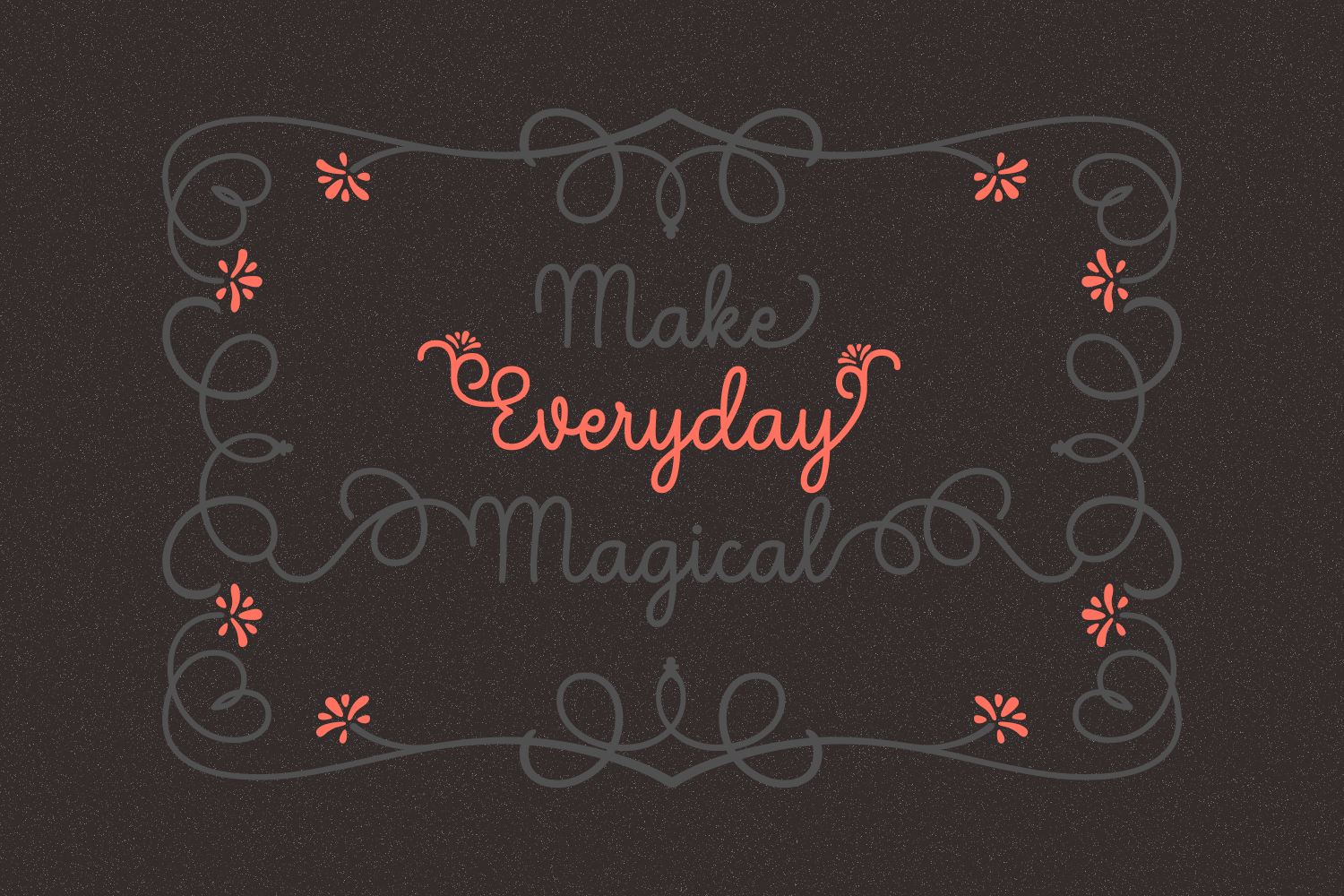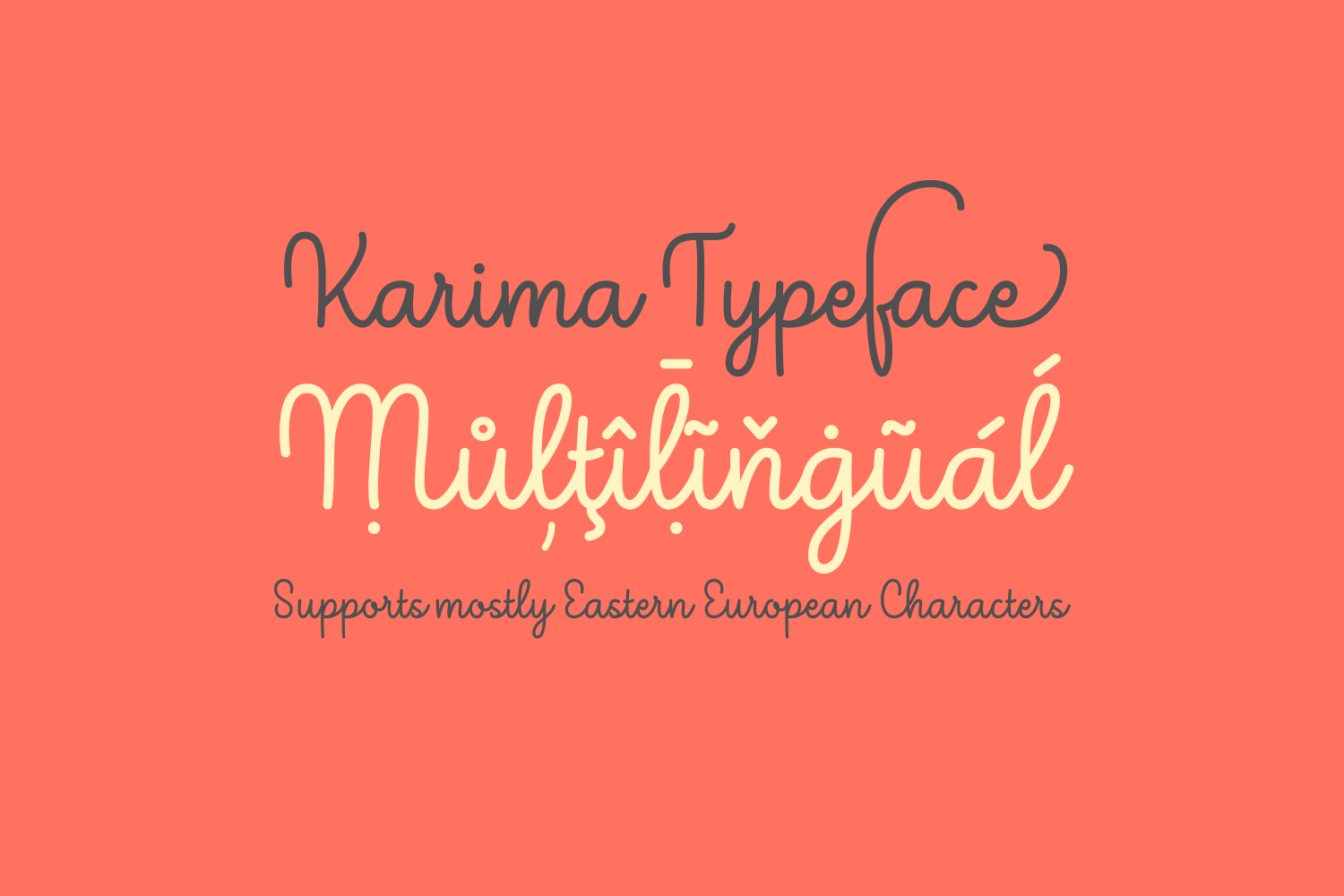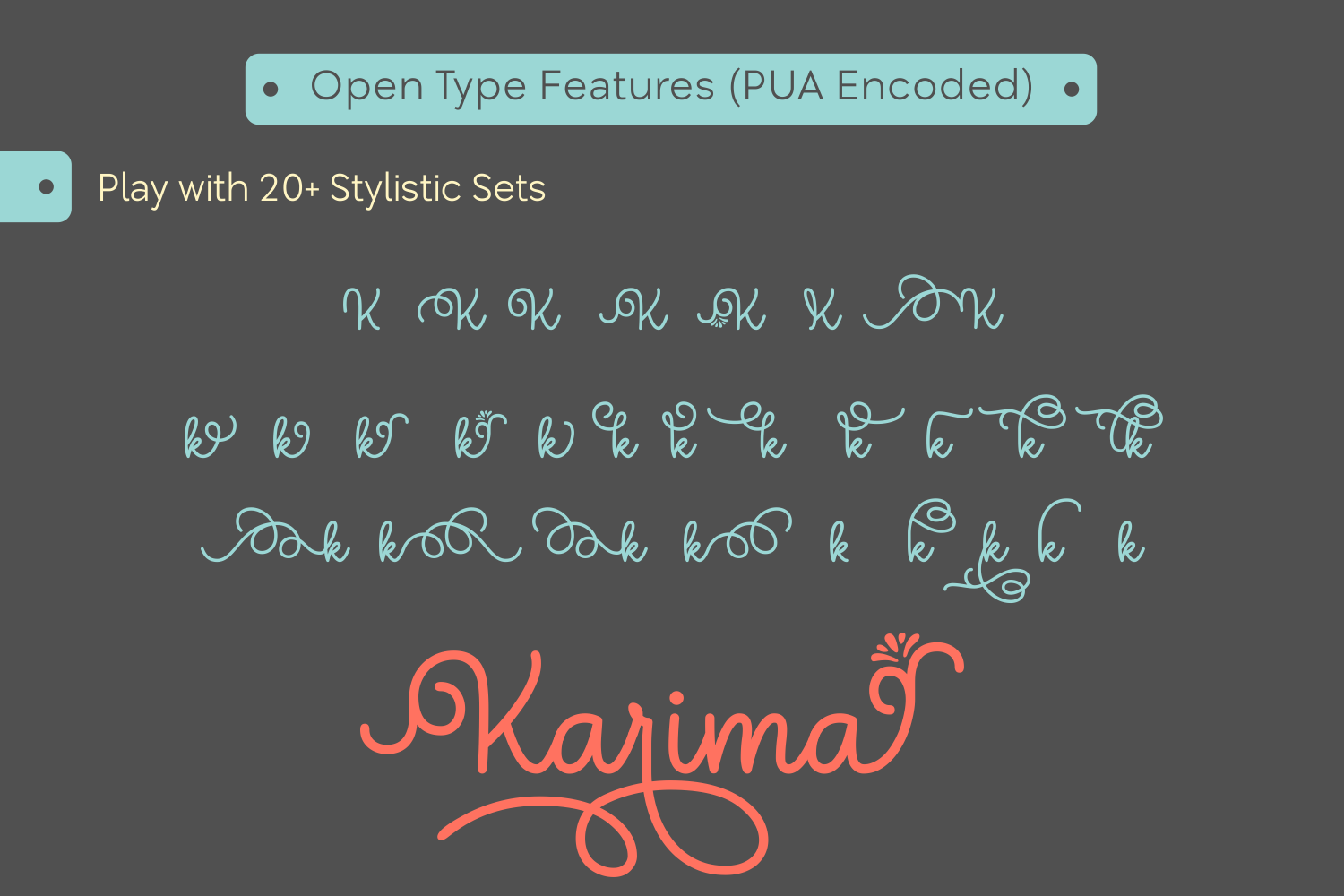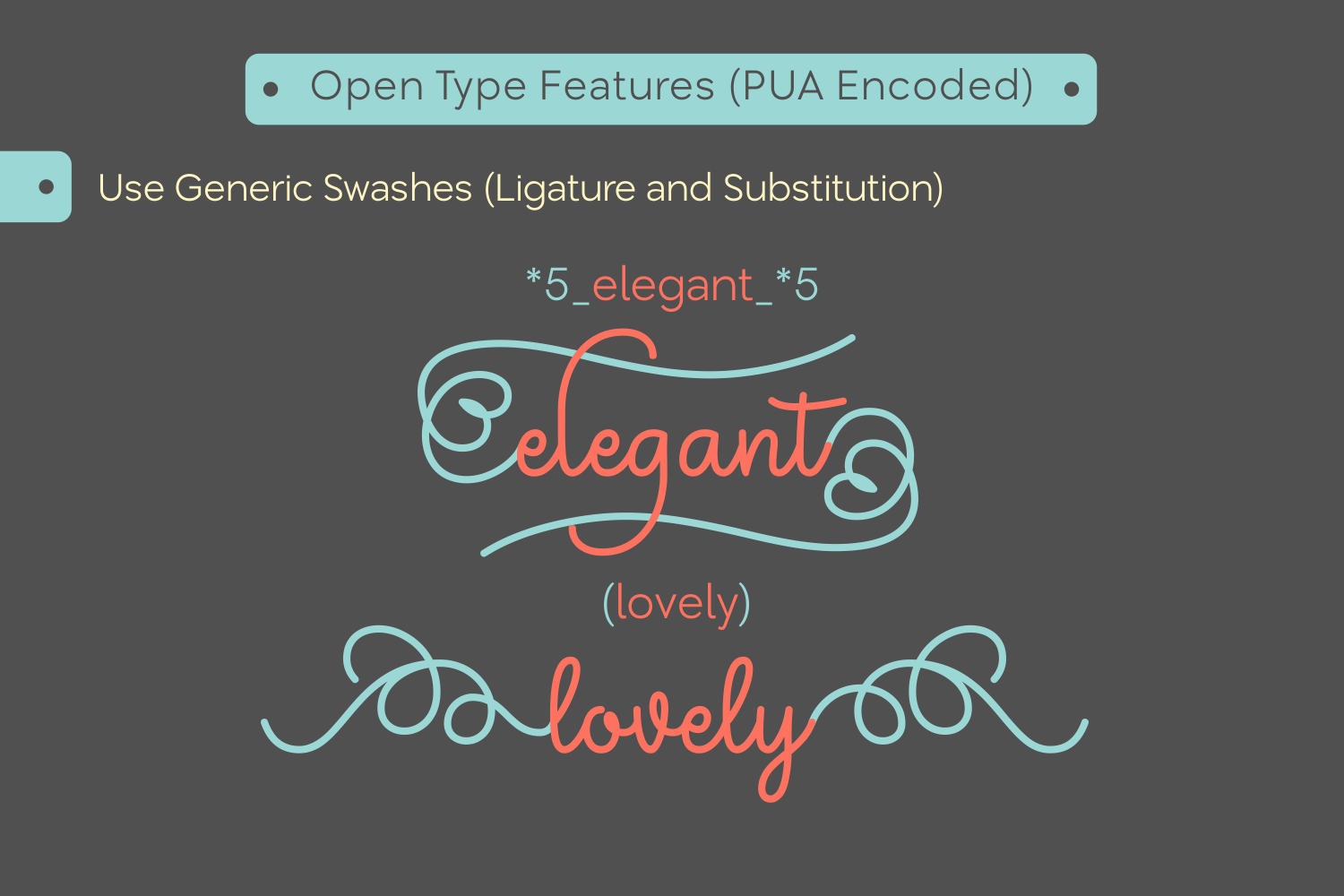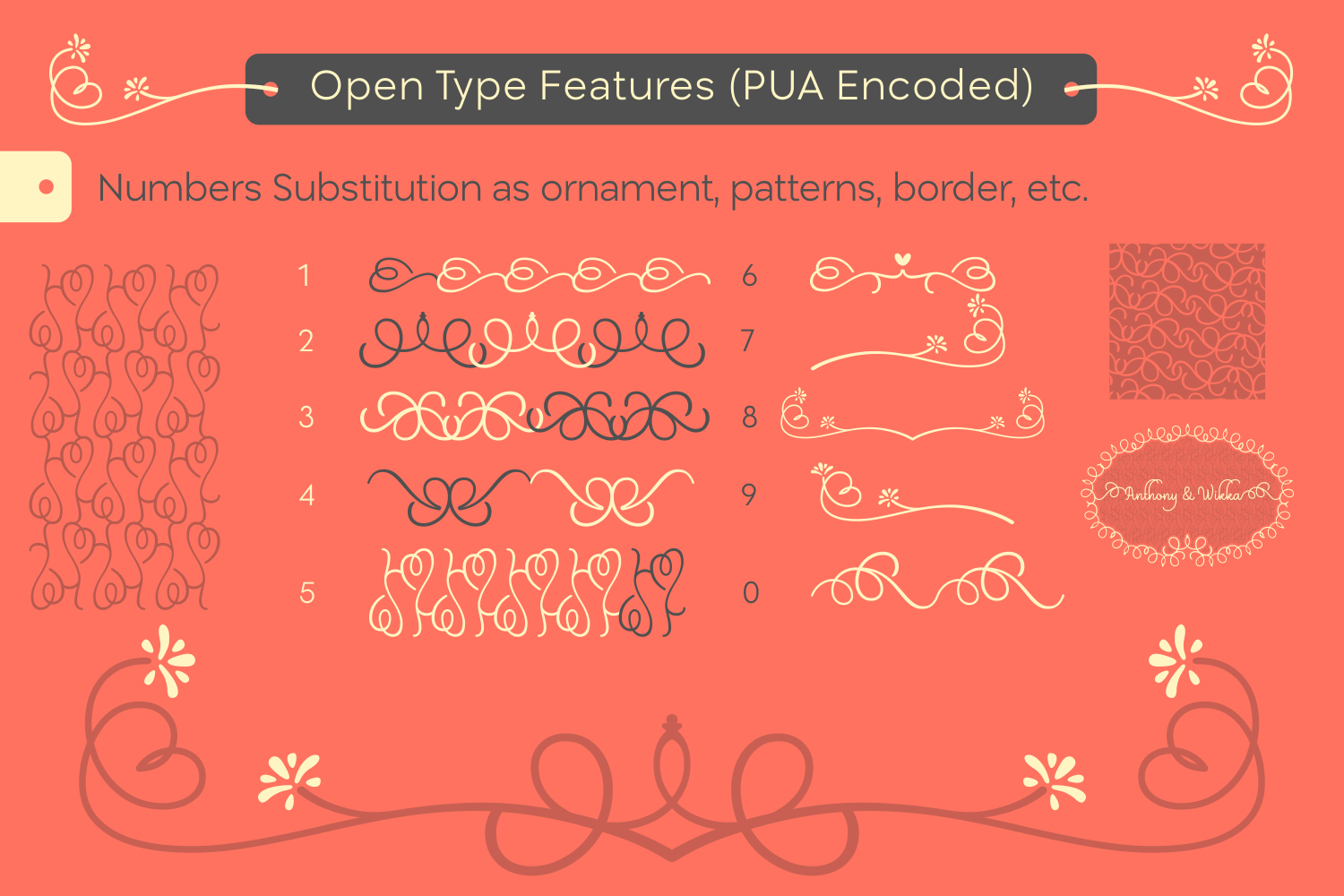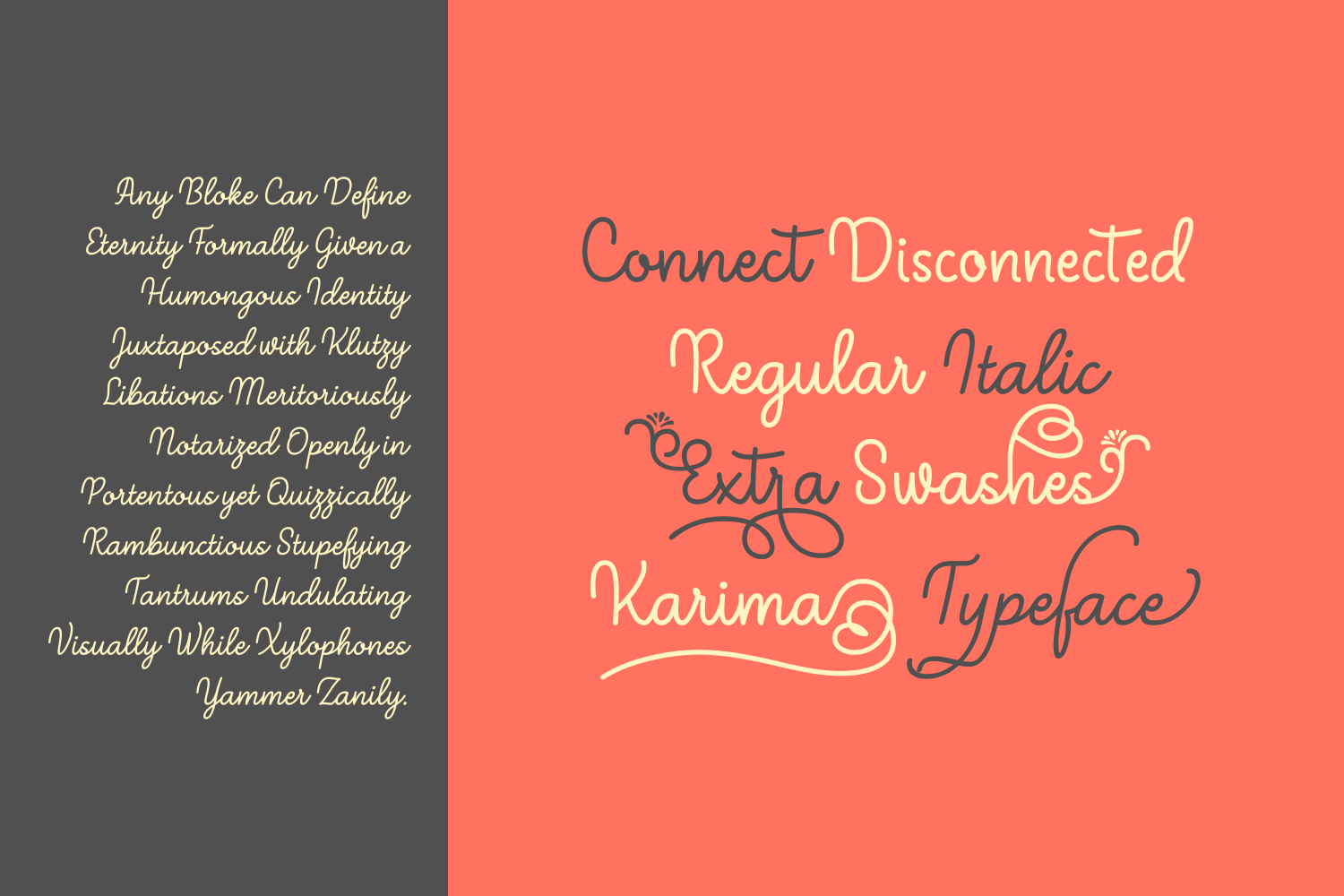
Introduction to Karima Mono Font
Karima Mono is a stunning monoline script featuring over a 1000 unique glyphs.
It’s multi-lingual, eligible and features more than 20 stylistic alternates, allowing you to create endless combinations and variations With this font in your toolbox, you will be able to turn each design into something unique within a matter of seconds.
Key Features of Karima Mono Font
Why Choose Karima Mono Font?
Karima Mono Font offers exceptional quality and versatility, making it a valuable addition to your design toolkit. Whether you’re creating for personal projects or commercial use, Karima Mono Font delivers professional results.